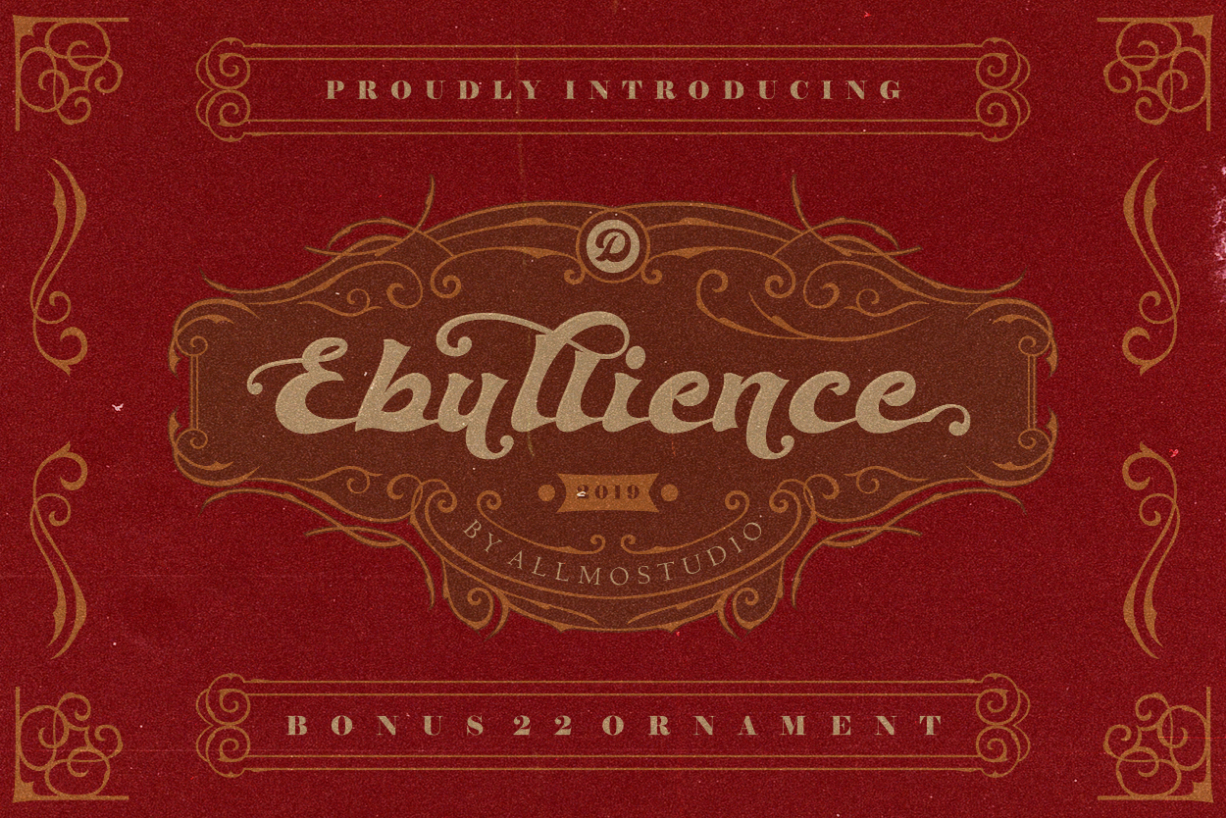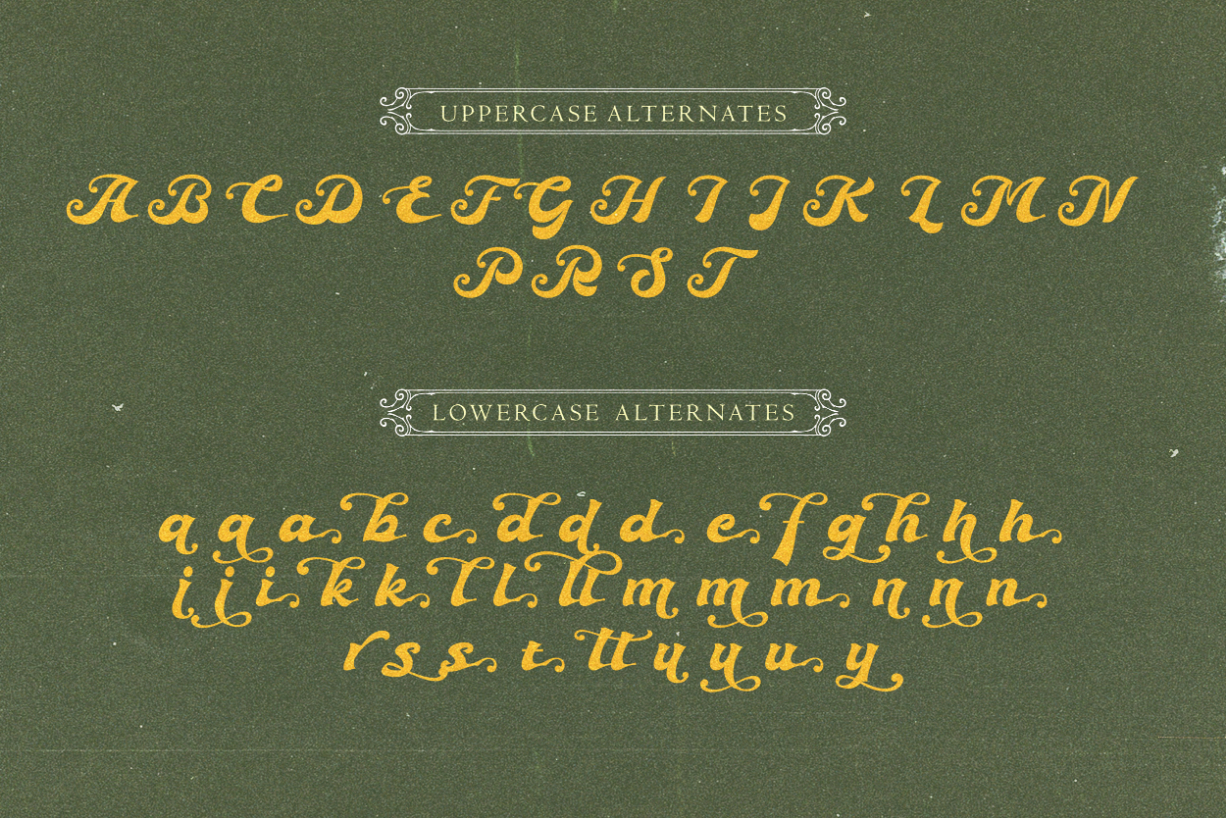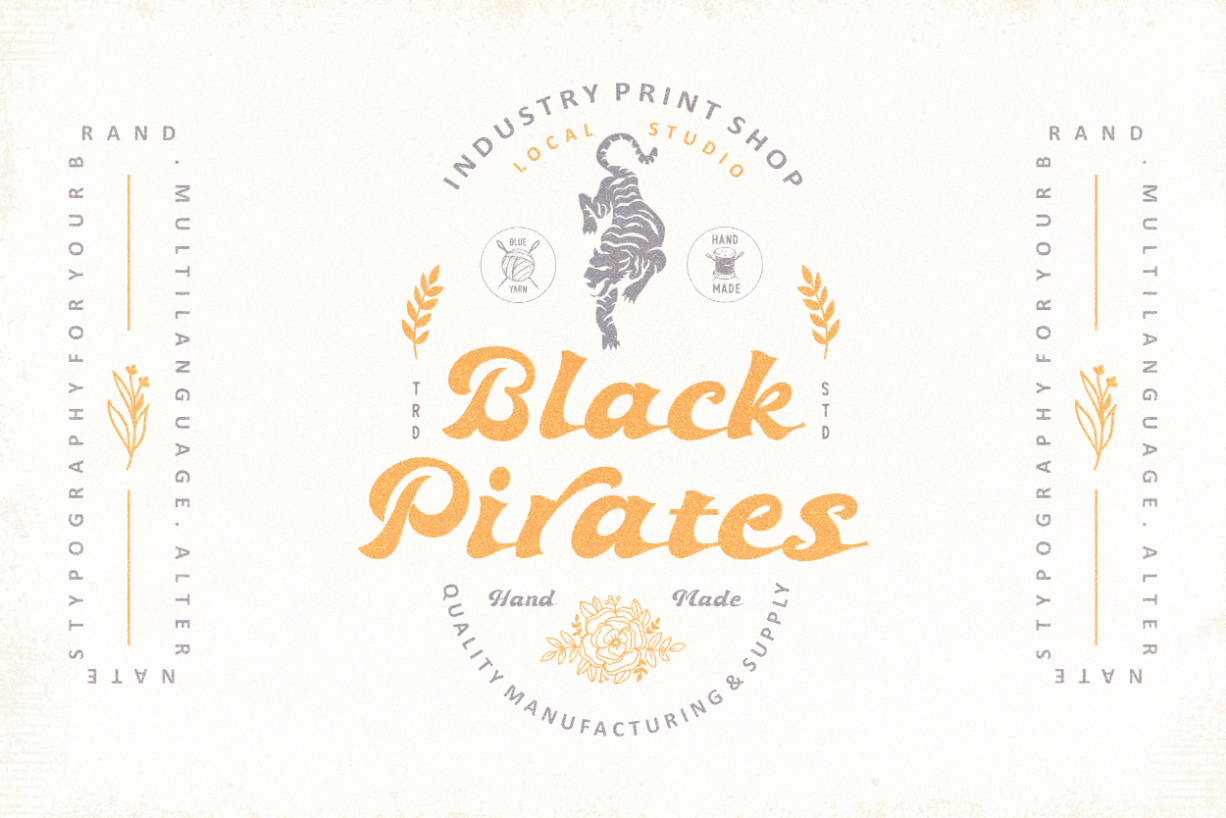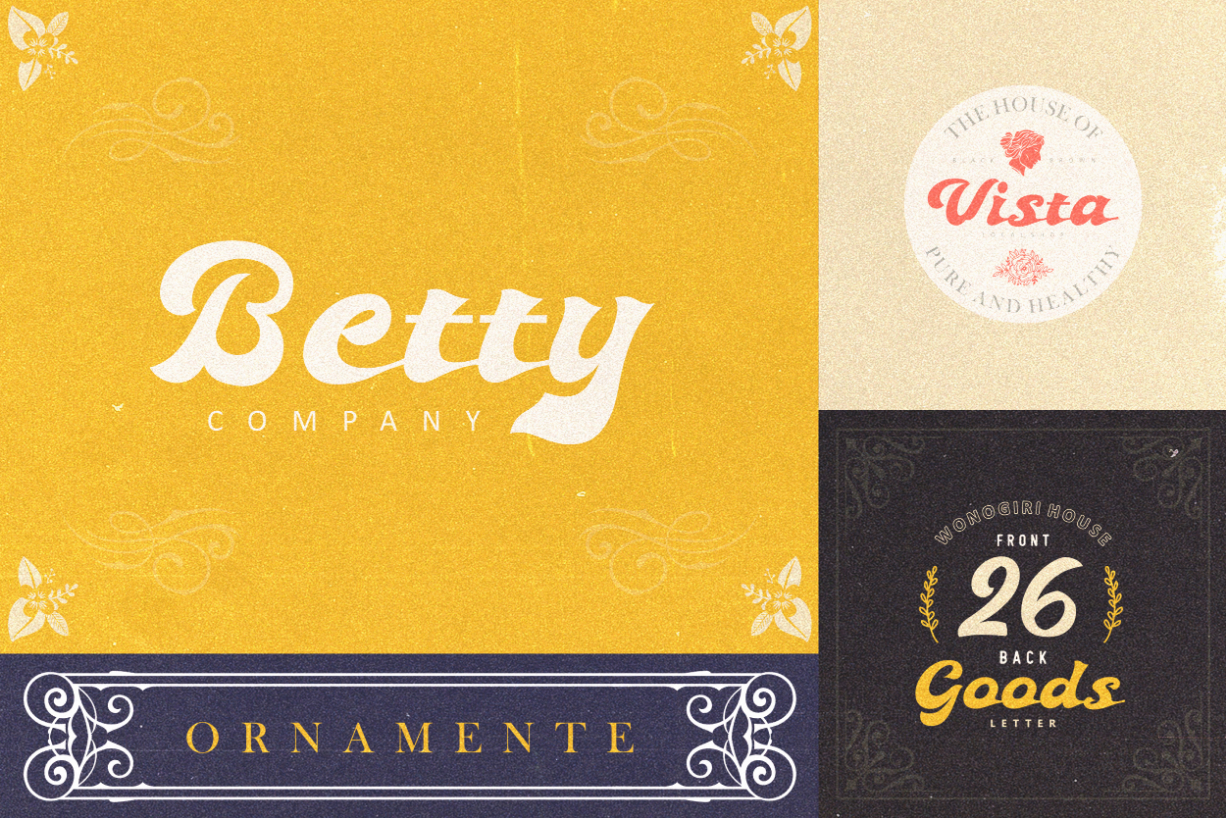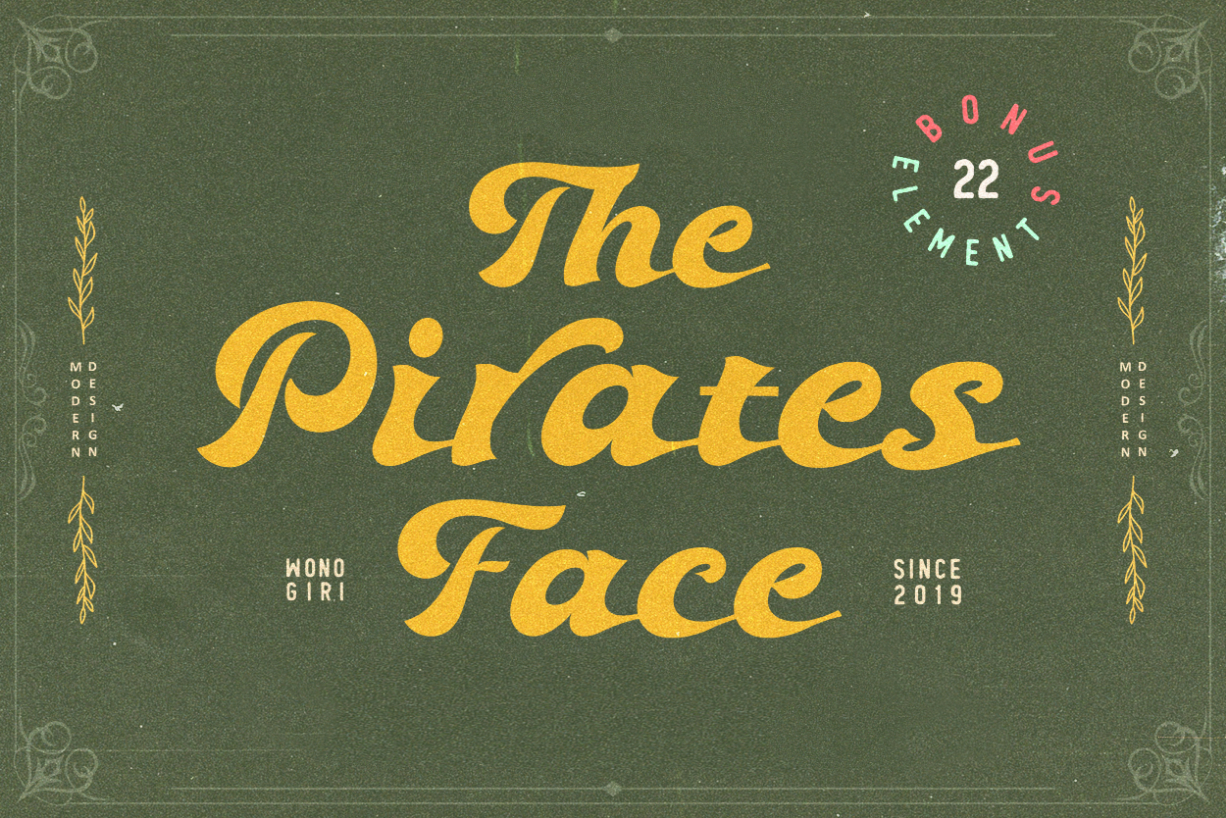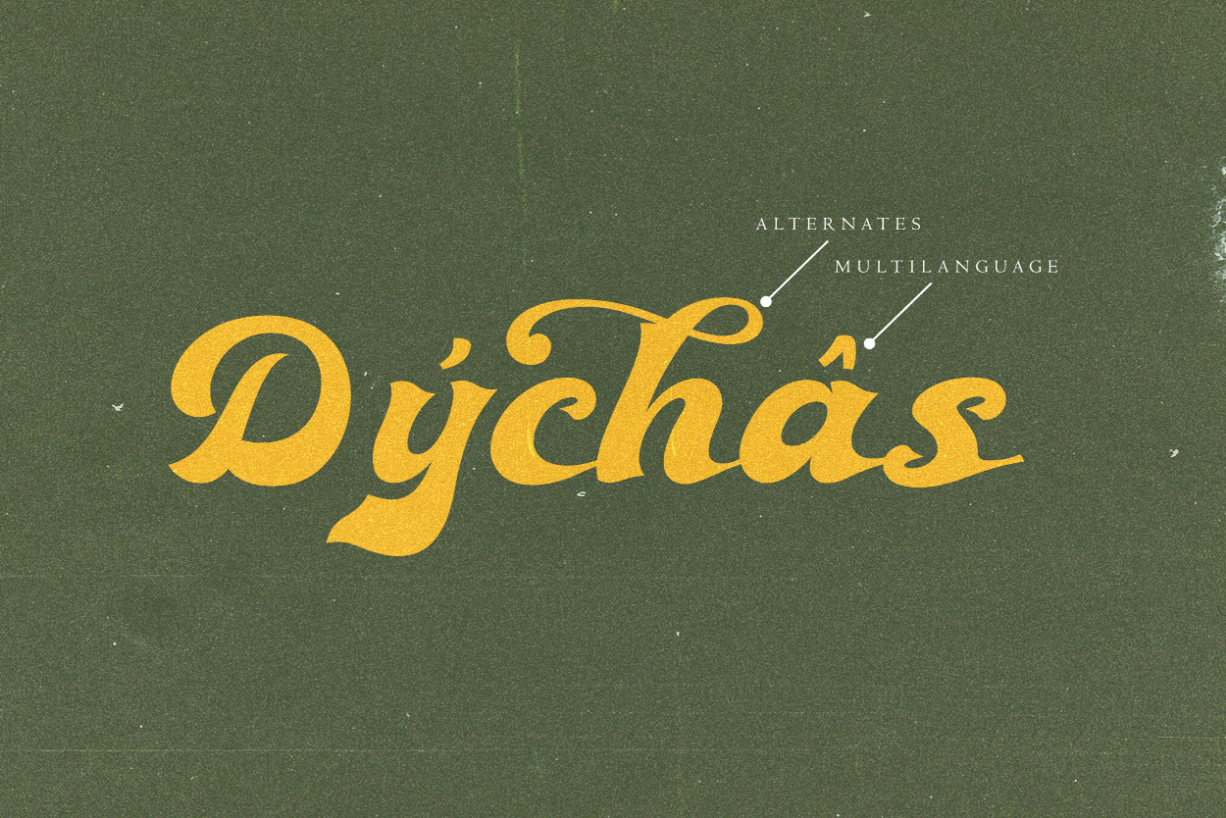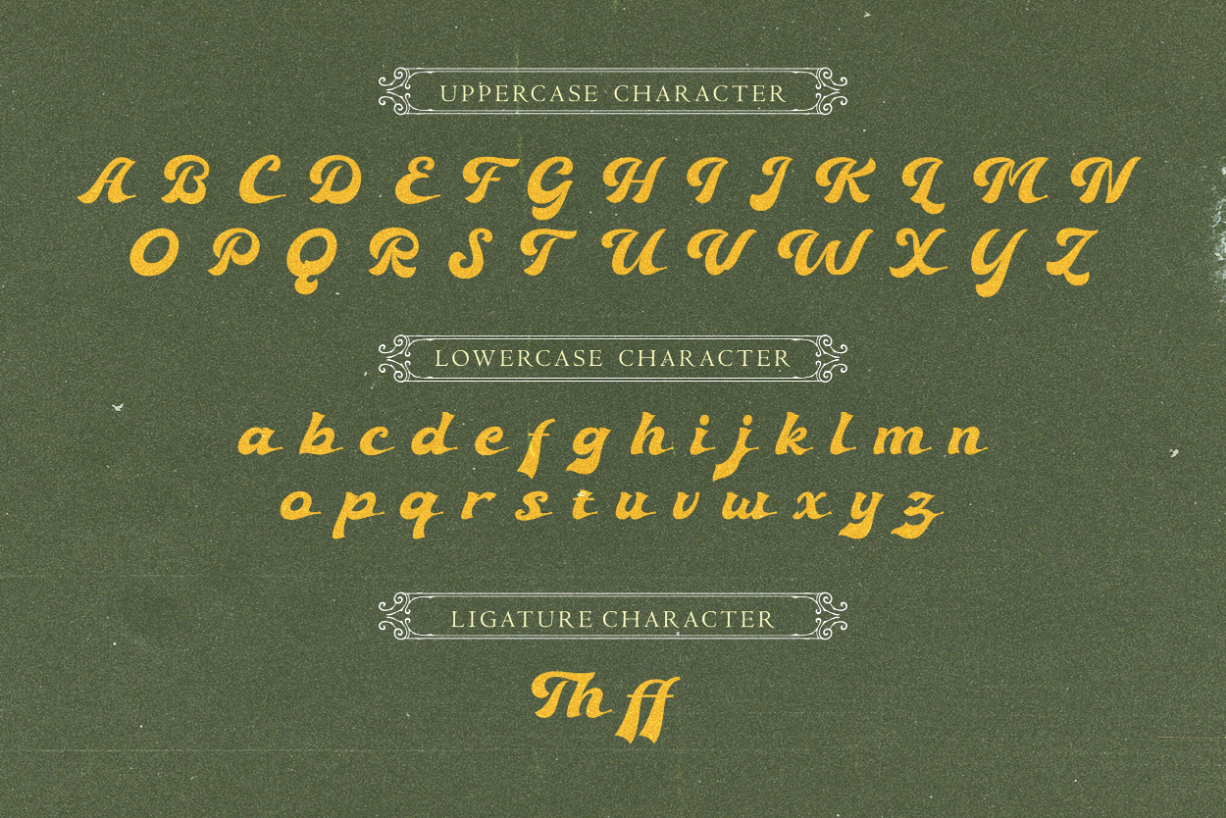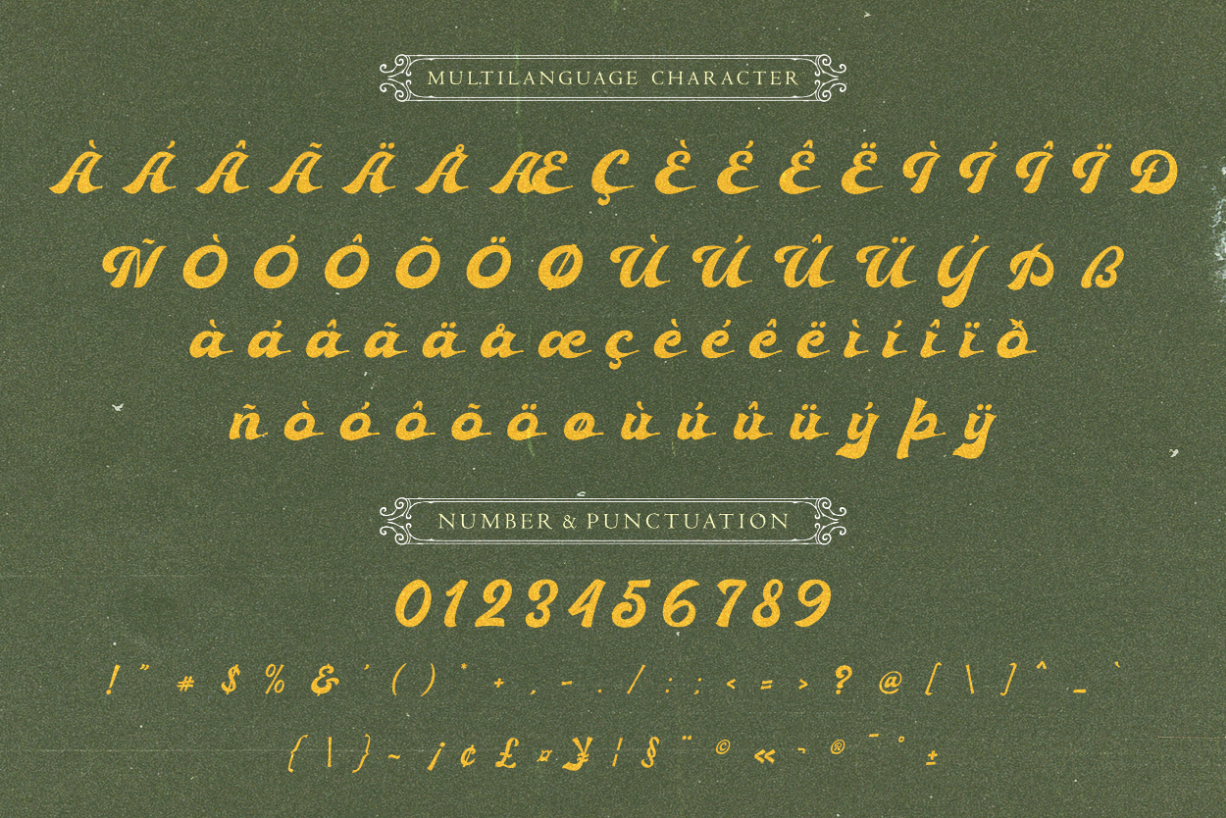
Ebullience Font
About Ebullience Font
Ebullience feels playfully nostalgic and delivers an incredible vintage aesthetic. Use this blackletter font to add that special retro touch to any design idea you can think of!